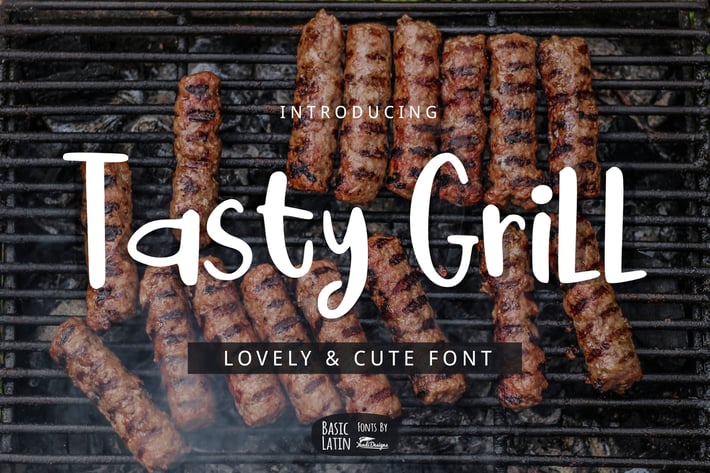
Tasty Grill Font
Tasty Grill is lovely , cute, simple, playful, multipurpose handwritten font , suitable for many project children book, quotes, logo , heading , title etc. Summer & Holiday Font.